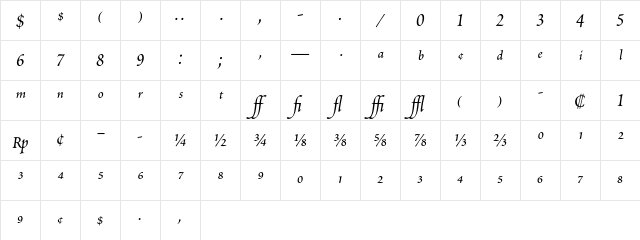
Complete Poetica Chancery Expert glyph index. Displaying only characters natively supported by Poetica Chancery Expert font.
Poetica is a composed and adaptable typeface that performs quietly and consistently across a wide range of design contexts.